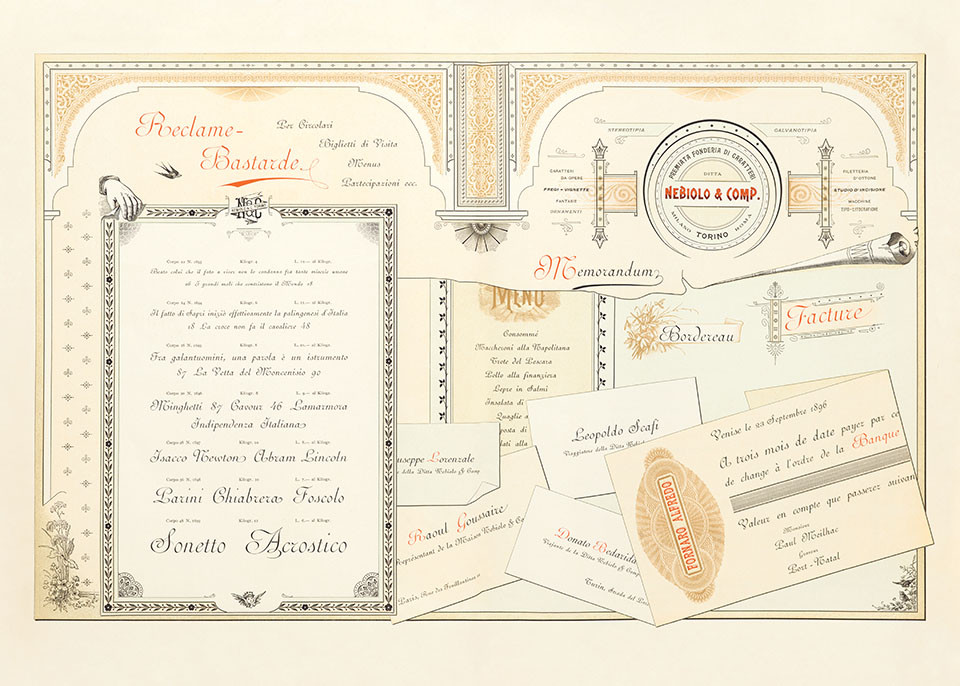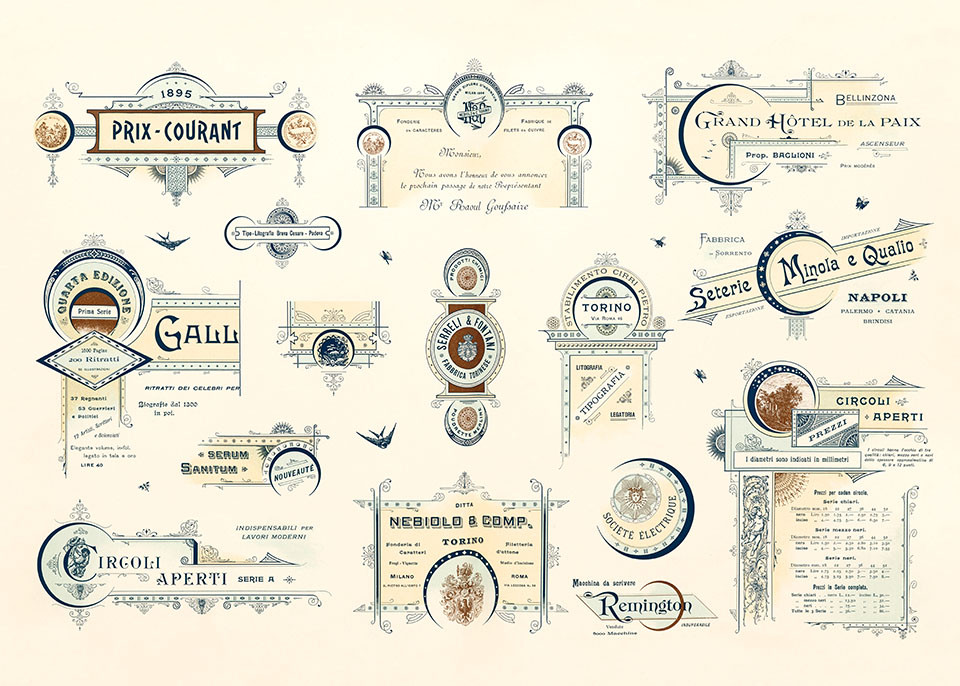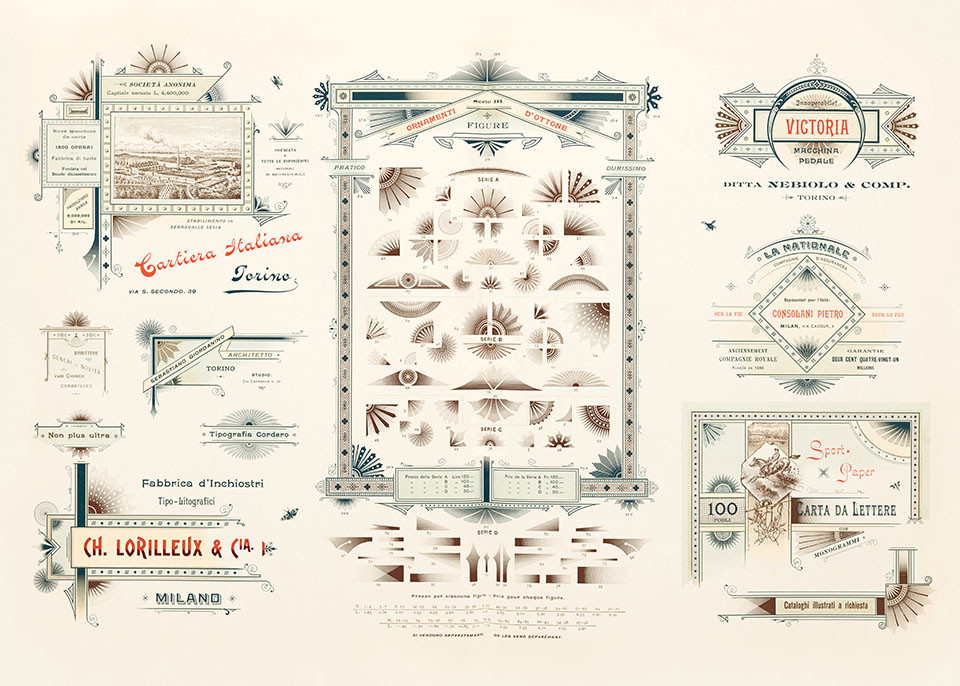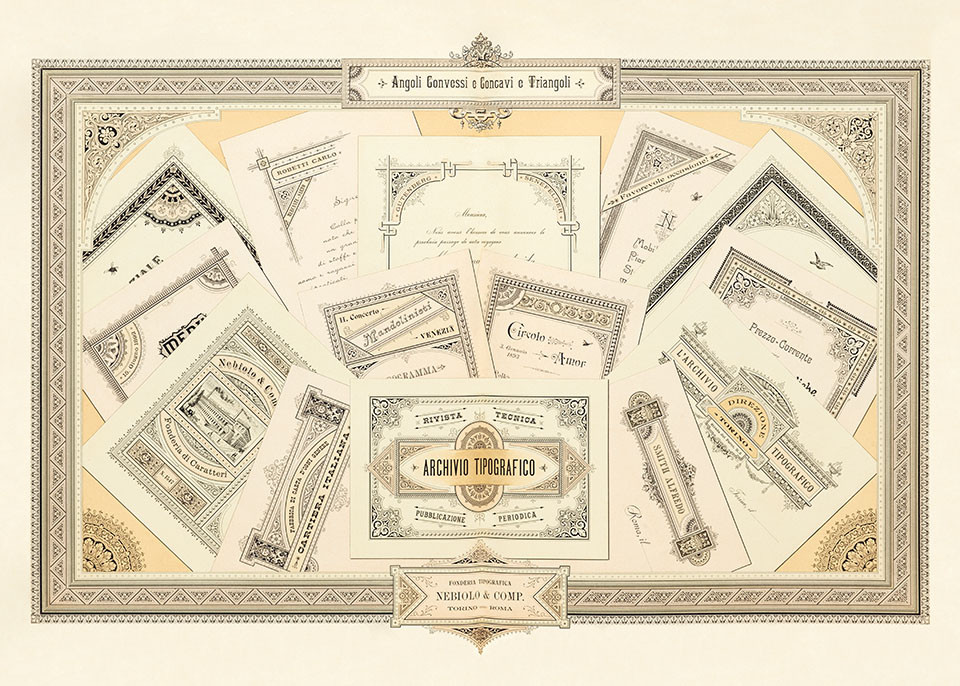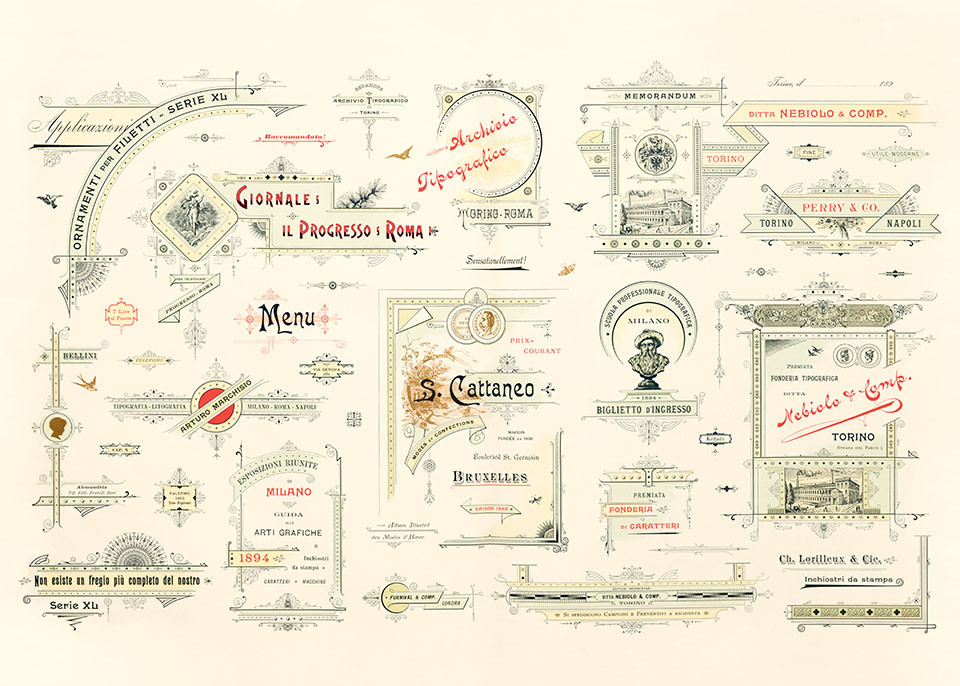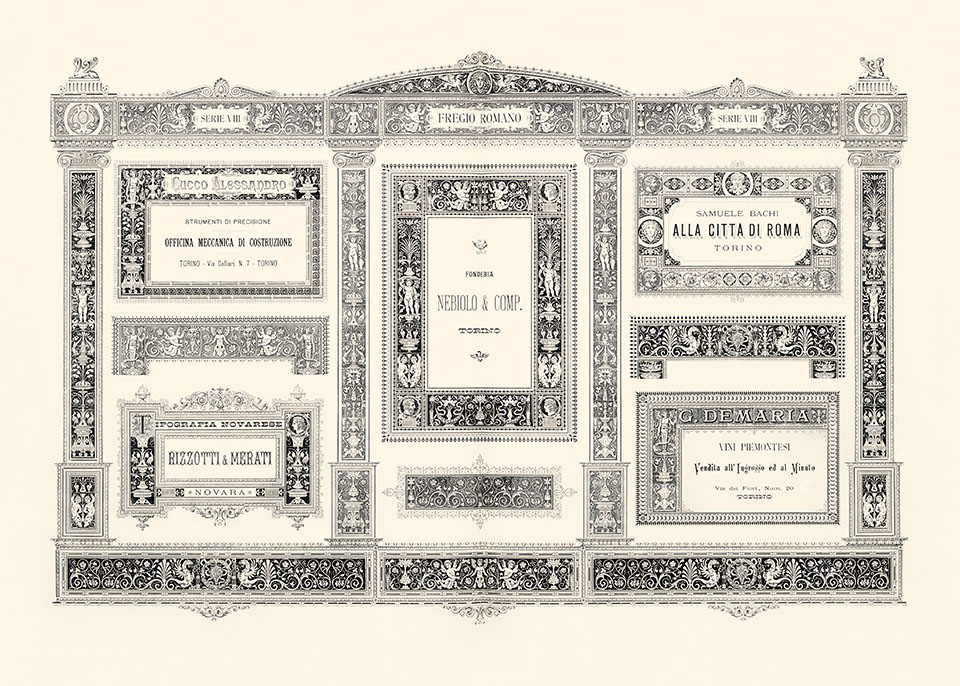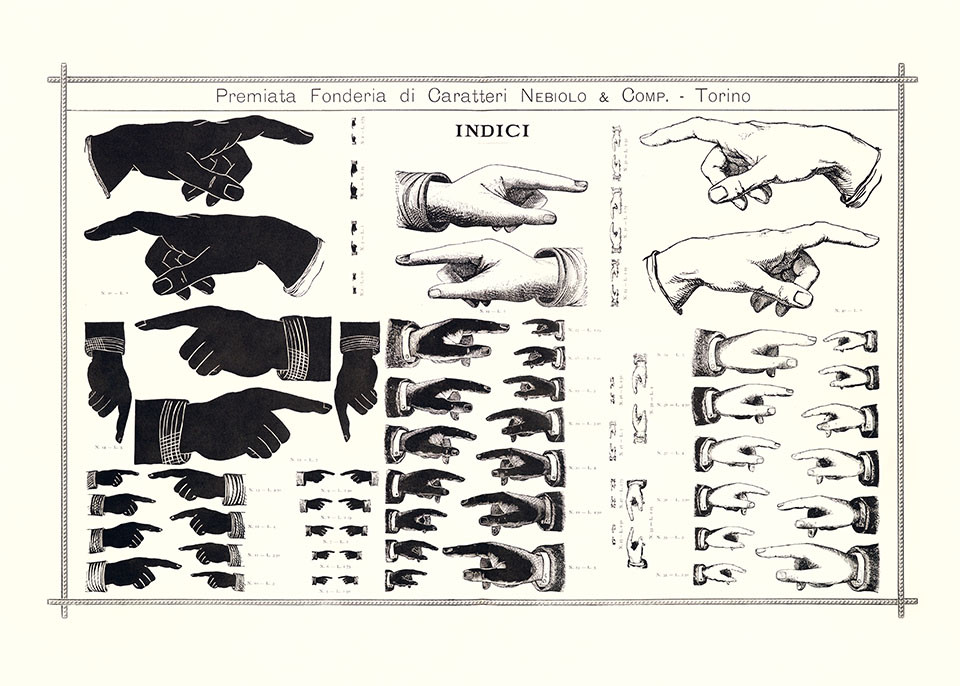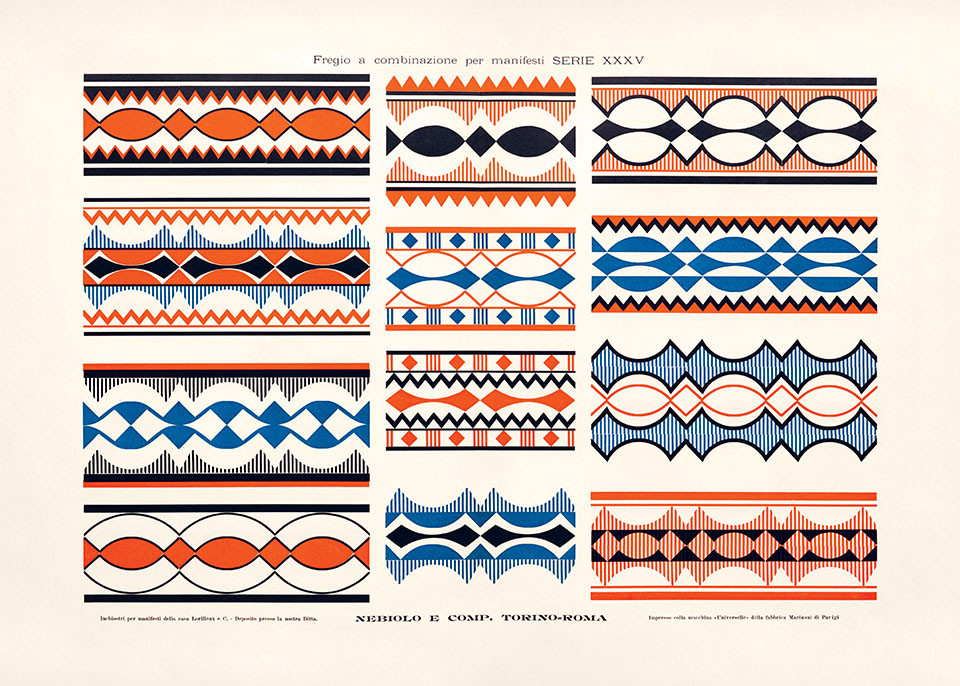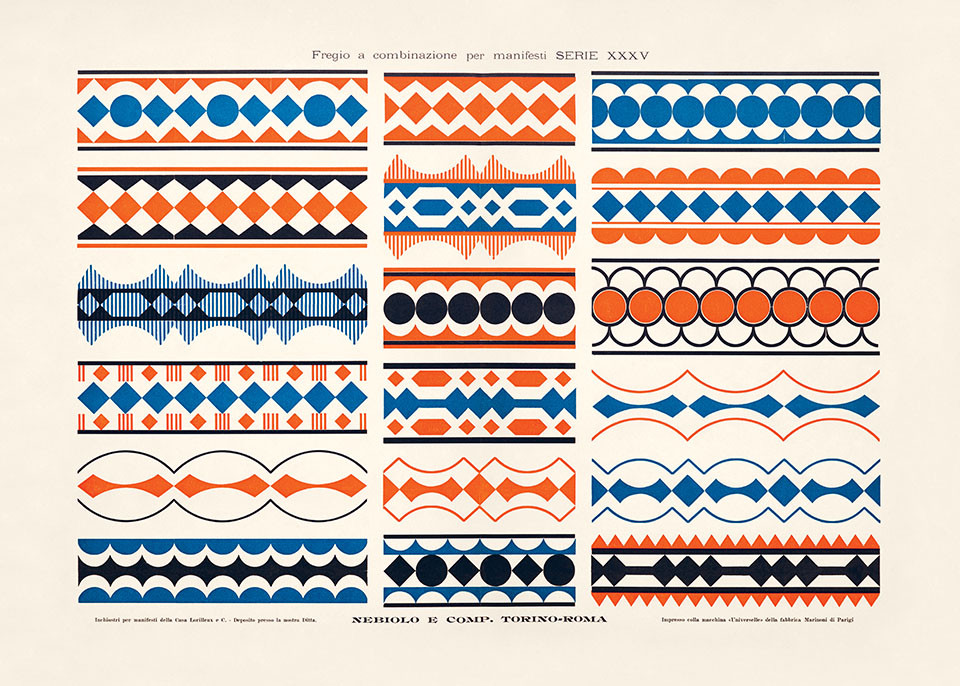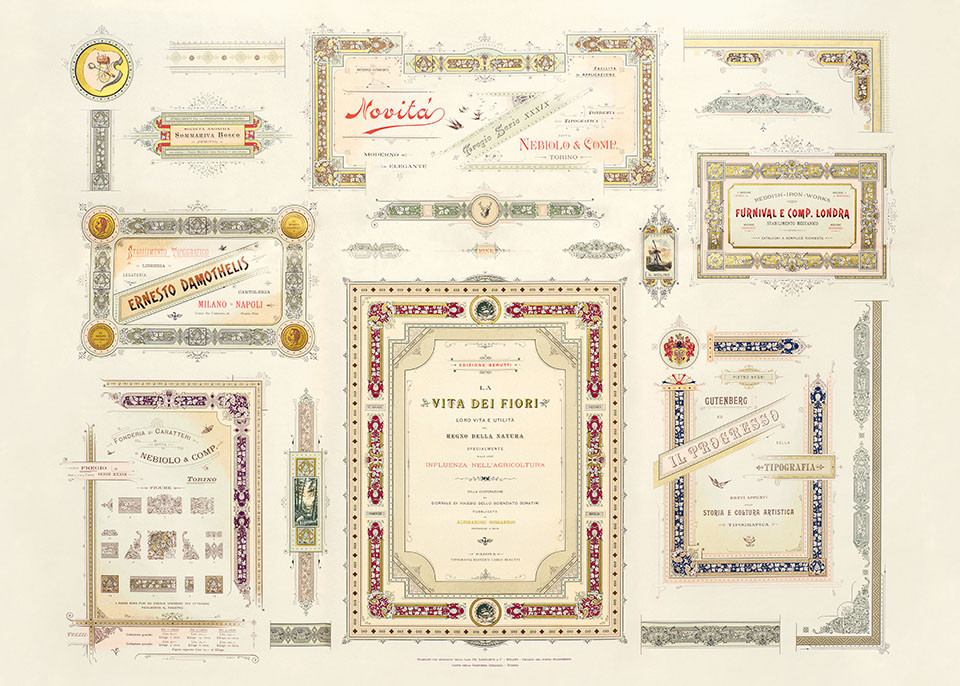
In the nineteenth century, technological innovations allowed for a creative flourishing in print, and letterpress practitioners produced extravagant materials to showcase their craft.
On view in Artistic Printing Creative Papers is a selection from two such dazzling promotions, issued by the famed Italian foundry Nebiolo. Their large-format pages entice with resplendent inks, wide-ranging typefaces, and charming ornaments, such as manicules, silhouettes, fleurons, and ornate borders.
With type rippling across ribbons, stacked in stately friezes, or clustered in decorative vignettes, the sixteen displays here—printed on oversize perforated pages—celebrate the bygone artistry of the industrial era.
About Nebiolo
In 1878, Giovanni Nebiolo acquired a small type foundry in Turin and established Nebiolo & Co. as an ambitious manufacturer of printing presses. After consolidating many small foundries across Italy in the early 1900s, the company would later become the most important Italian type foundry of the twentieth century.